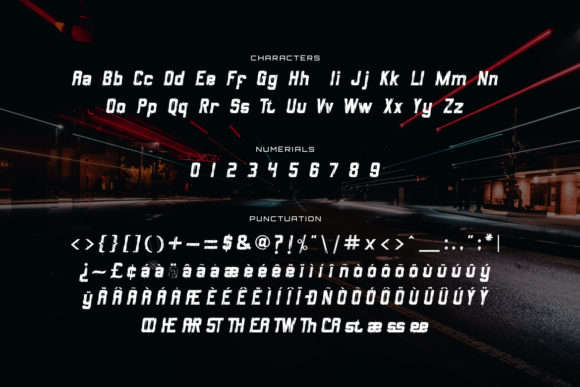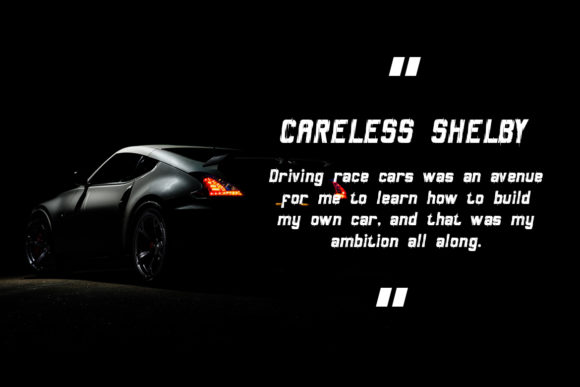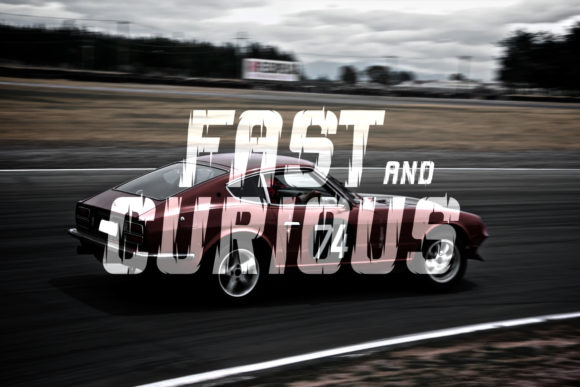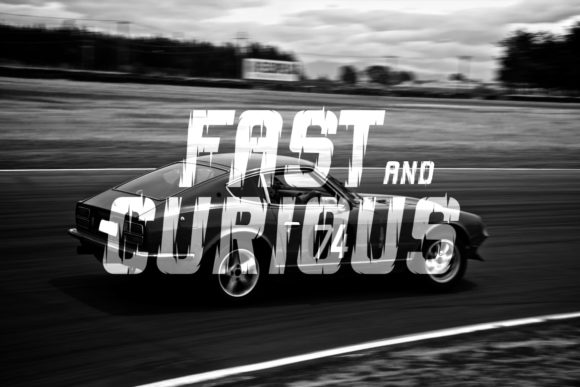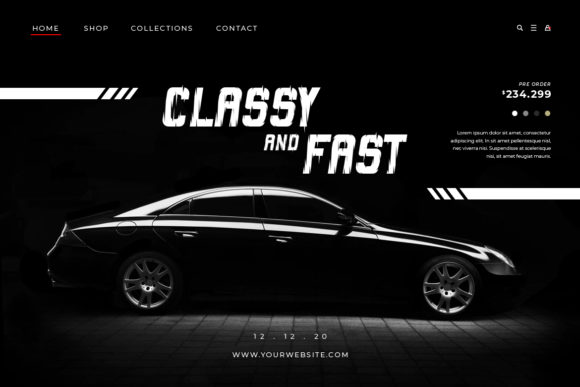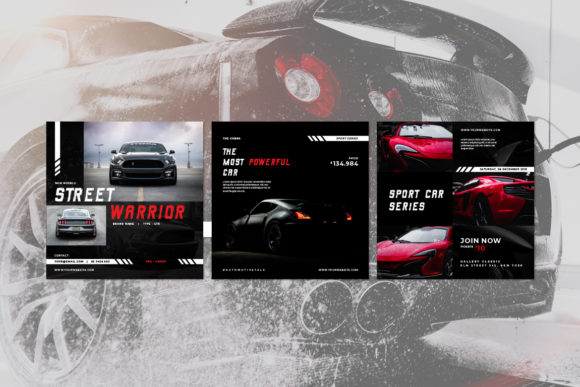
The Thrill of Discovery: Unleashing the Power of Escalated Font
I’ll never forget the rush of excitement I felt when working on a racing-themed project for a client. I had a clear vision of what I wanted to create, but something was missing – the perfect font. After hours of scouring the internet, I stumbled upon Escalated Font, and it was love at first sight! 🚗💨 In this article, I’ll share my experience with this unique display font, its features, and how to make the most of it in your designs.
The Good: ✨
- 🔥 Extremely unique and eye-catching design, perfect for racing-themed projects
- ✅ Highly legible, even at large sizes
- 🎨 Versatile and can be used for titles, headings, and even logos
- 👍 Well-suited for digital and print applications
The Not-So-Good: 🤔
- ⚠️ Limited use cases – works best for display purposes, not for body text
- 🤔 Some characters may not work well in combination with others, requires careful pairing
- Explore the OpenType features, such as stylistic alternates and glyphs, to add an extra layer of creativity to your design.
The Story Behind Escalated Font: A Designer’s Inspiration
Escalated Font was designed with the thrill of racing in mind. The creator, a passionate racing enthusiast, wanted to craft a font that would capture the speed, energy, and excitement of the sport. With its unique design and bold personality, Escalated Font is sure to rev up your designs and leave a lasting impression.
Q: What type of projects is Escalated Font best suited for?
A: Escalated Font is perfect for racing-themed projects, such as posters, flyers, and social media graphics. Its unique design and bold personality make it a great choice for titles, headings, and logos.
Q: Is Escalated Font suitable for body text?
A: No, Escalated Font is not recommended for body text. Its unique design and bold personality make it better suited for display purposes, such as titles and headings.